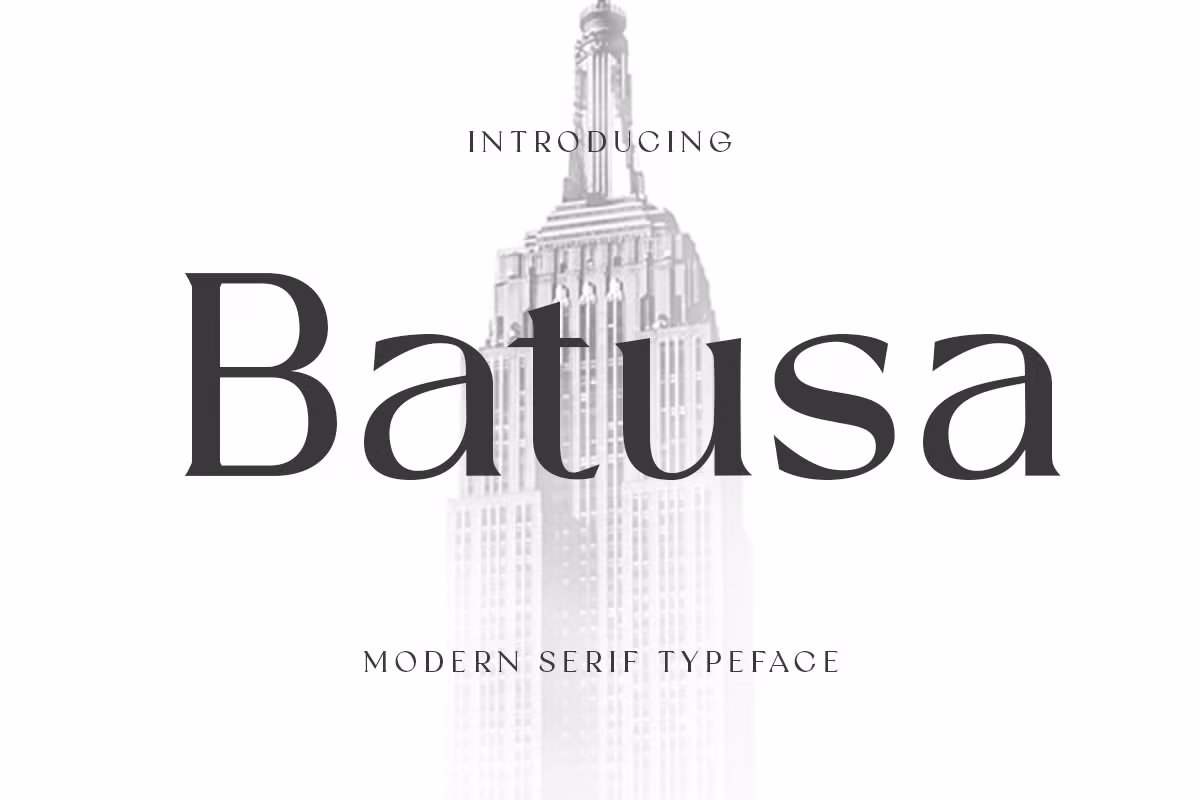
Batusa Modern Serif Fonts Free Download
Batusa Modern Serif Fonts Free Download is a clean and sophisticated serif typeface designed for modern design applications. Featuring sharp serifs, smooth curves, and balanced proportions, Batusa is perfect for high-end branding, editorial design, logos, social media graphics, and any project that requires a contemporary and refined look.
Its modern design ensures strong readability while maintaining an elegant and stylish appearance, making it ideal for both large headlines and smaller body text. Whether you're designing for luxury products, creating a corporate brand identity, or working on upscale print materials, Batusa brings a polished and professional edge to your typography.